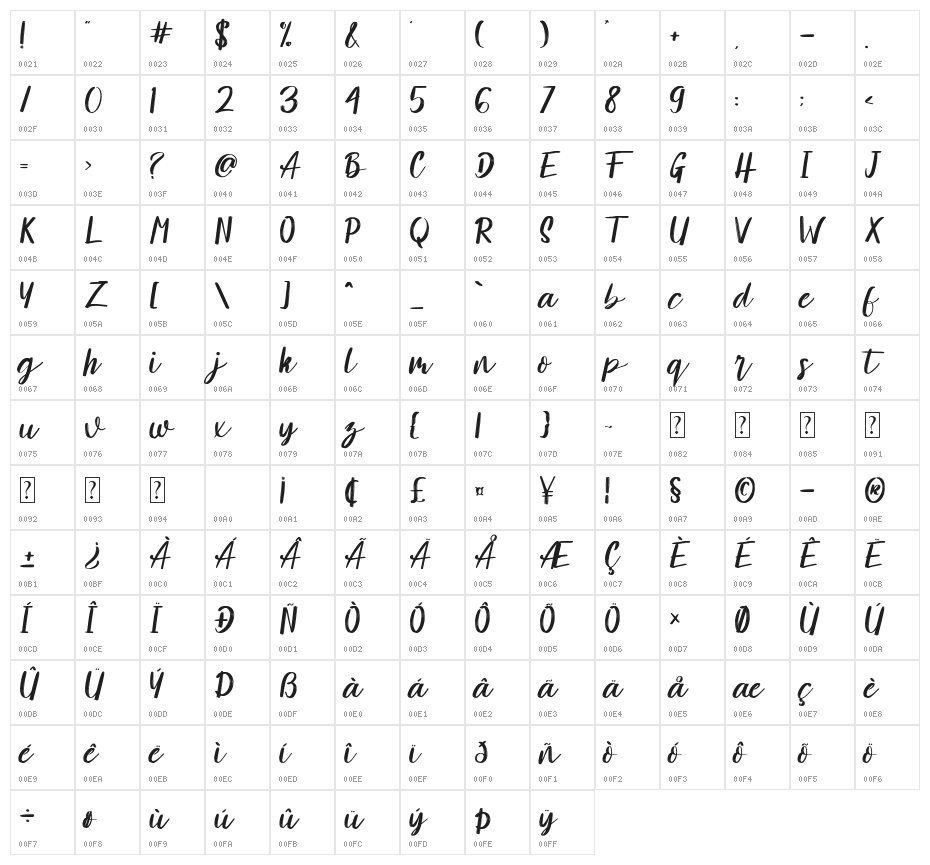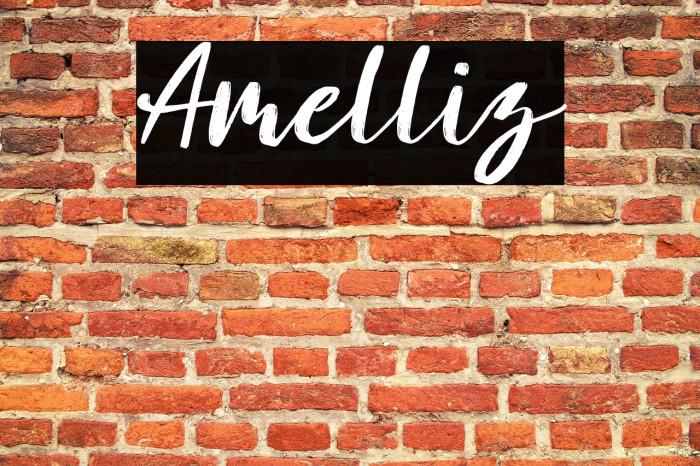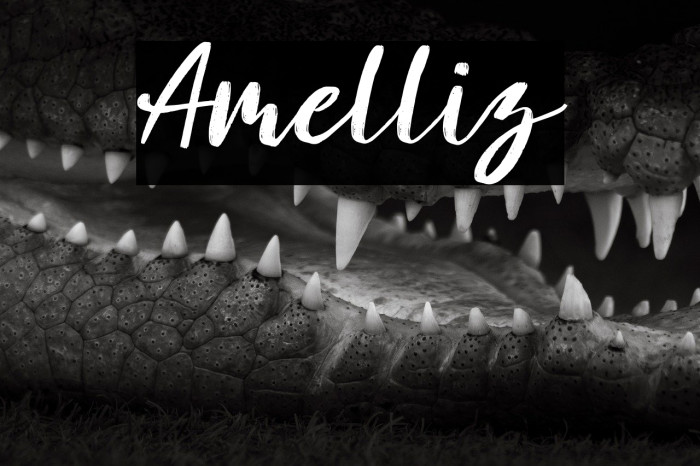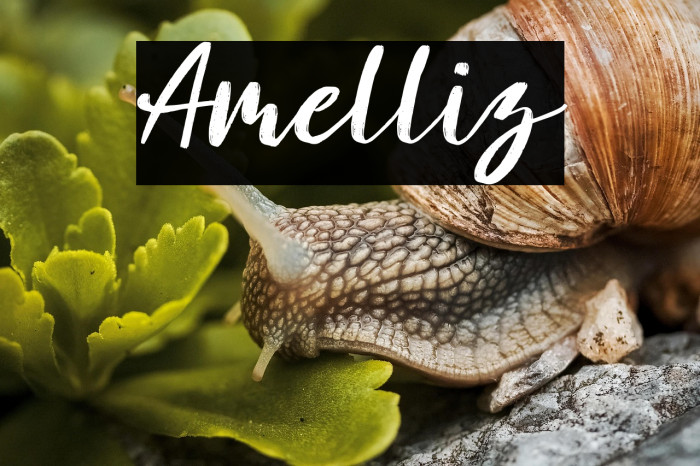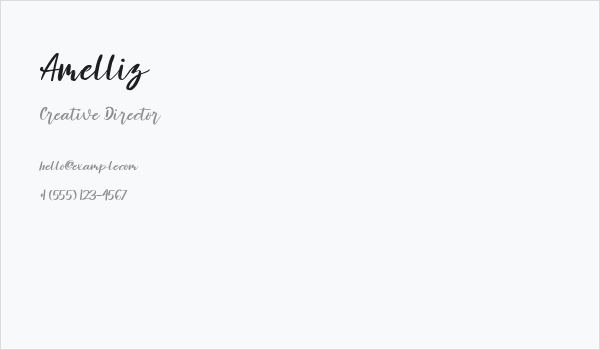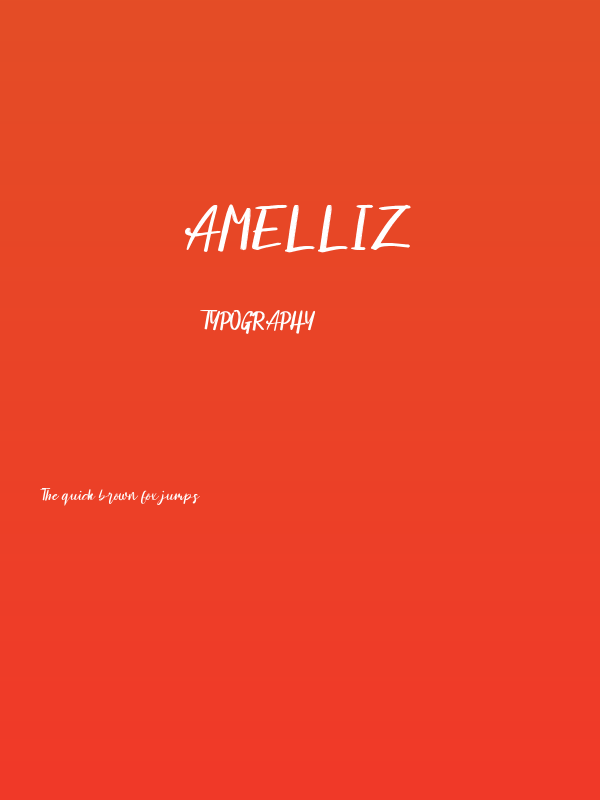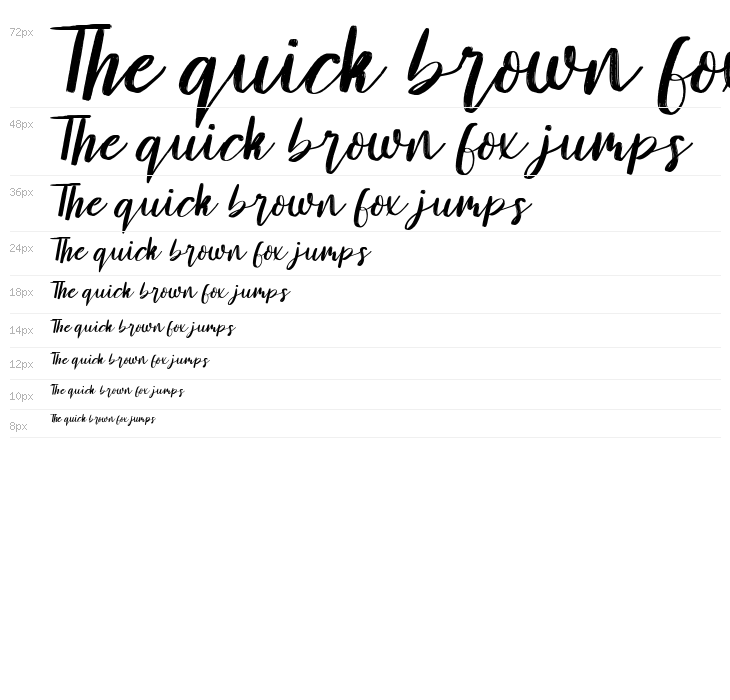
Amelliz Font
Amelliz Description
This font features a bold and expressive handwritten style, characterized by its brush-like strokes and dynamic flow. The uppercase letters are slightly more structured, while the lowercase letters exhibit a more fluid and cursive appearance. The numbers and special characters maintain the same energetic style, making the font versatile for various creative applications. The strokes vary in thickness, adding a sense of movement and vibrancy to the text. This font is ideal for projects that require a personal and artistic touch, such as invitations, posters, and branding materials.
| Use Case | Headlines, Logos, Artistic projects |
| Proposed Projects | Ideal for invitations, posters, branding, and artistic projects. |